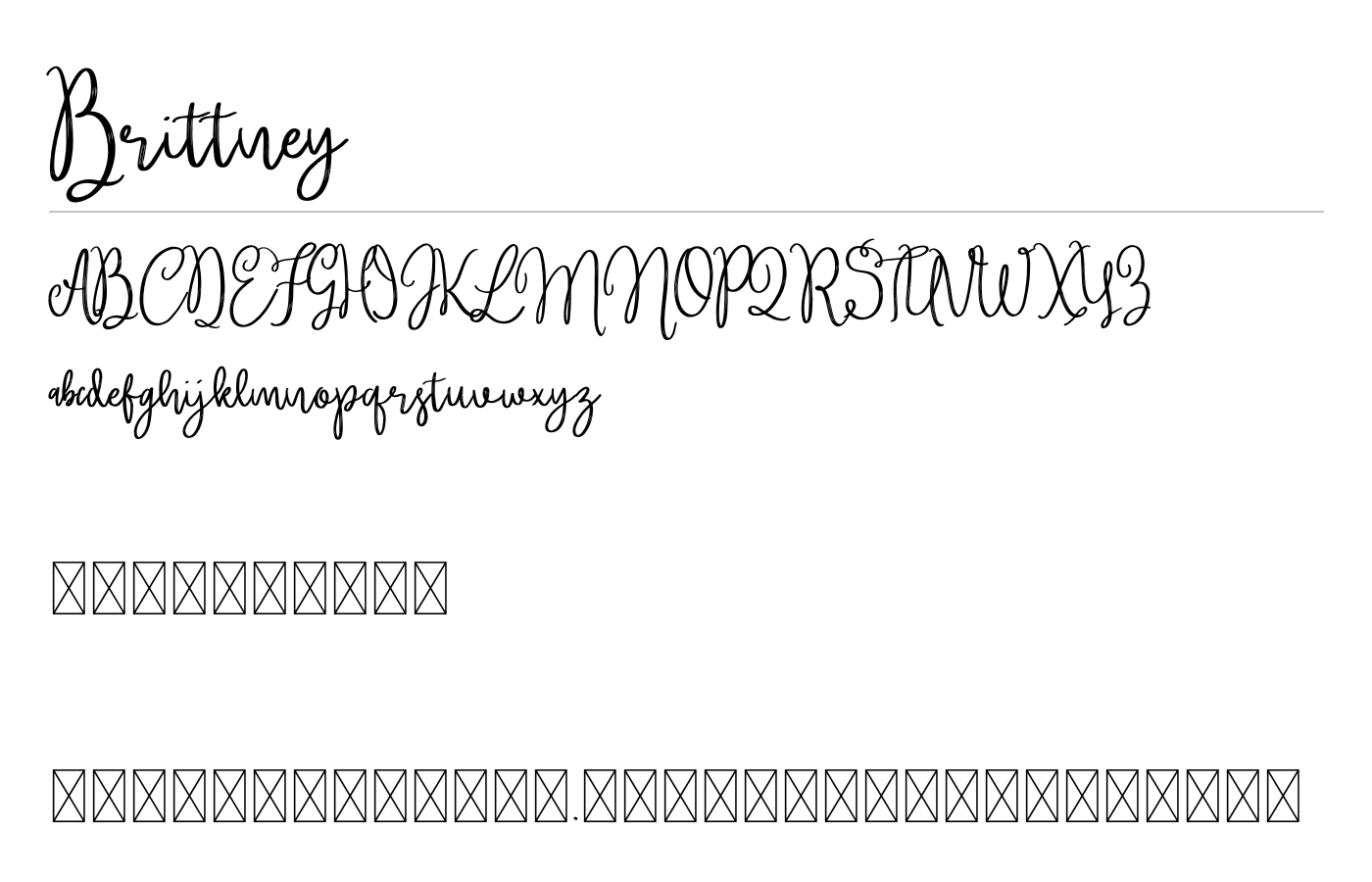
Brittney Font is a delicate and elegant script typeface featuring thin, flowing strokes with a natural, handwritten feel. Its tall, narrow letterforms and decorative uppercase characters create a refined and charming personality, perfect for feminine branding, invitations, and stylish logos. This font’s graceful and playful nature makes it ideal for projects that seek a personal, artistic touch.
Brittney Font
| Designer | Ana Natalia |